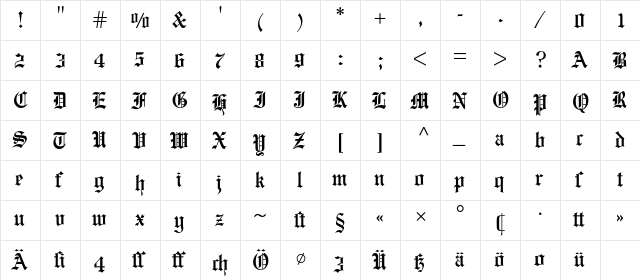
Engravers Old English BQ Regular
Design Context for Engravers Old English BQ Typeface
Engravers Old English BQ is a composed and adaptable typeface that performs quietly and consistently across a wide range of design contexts.